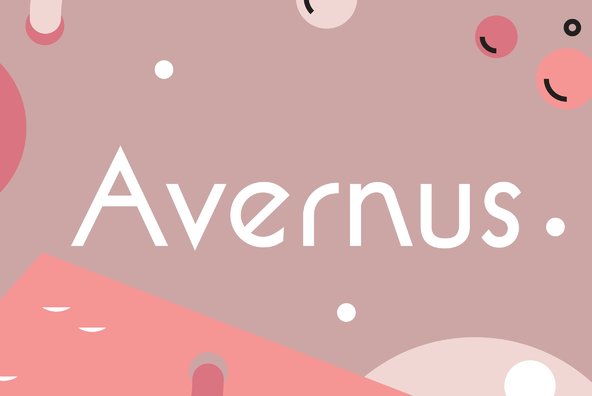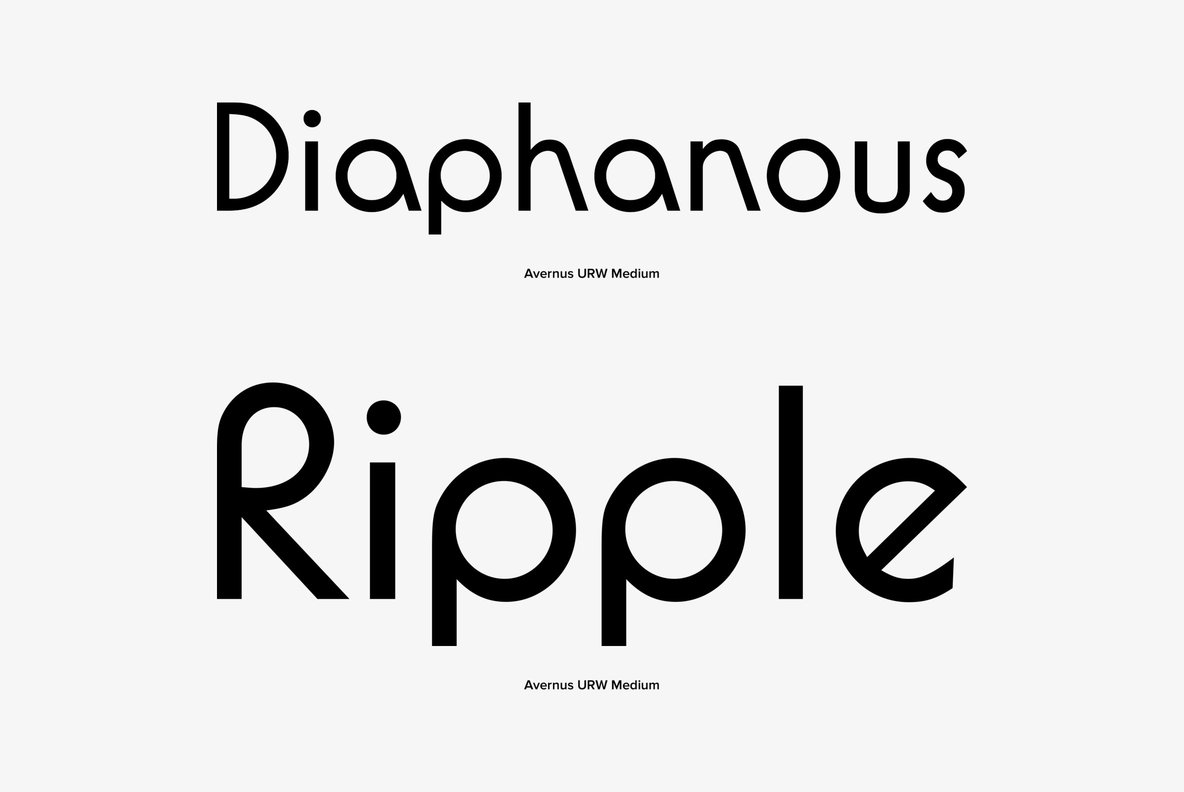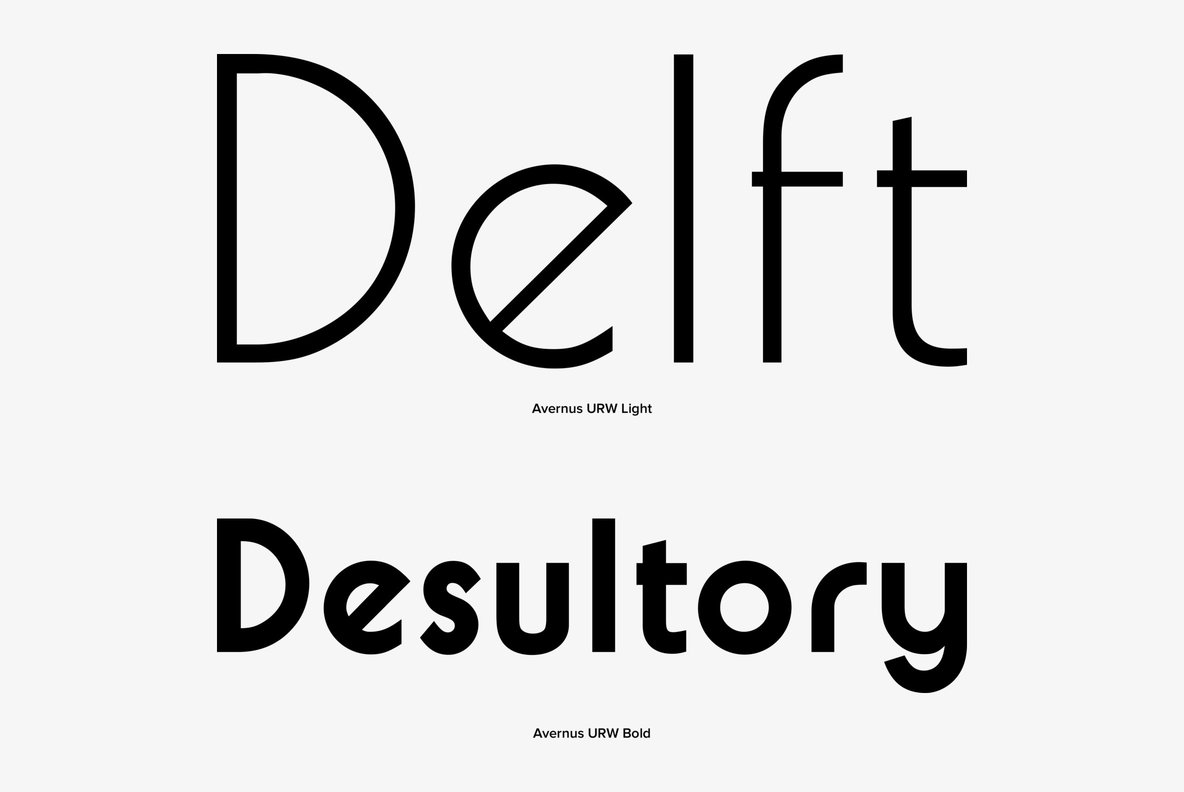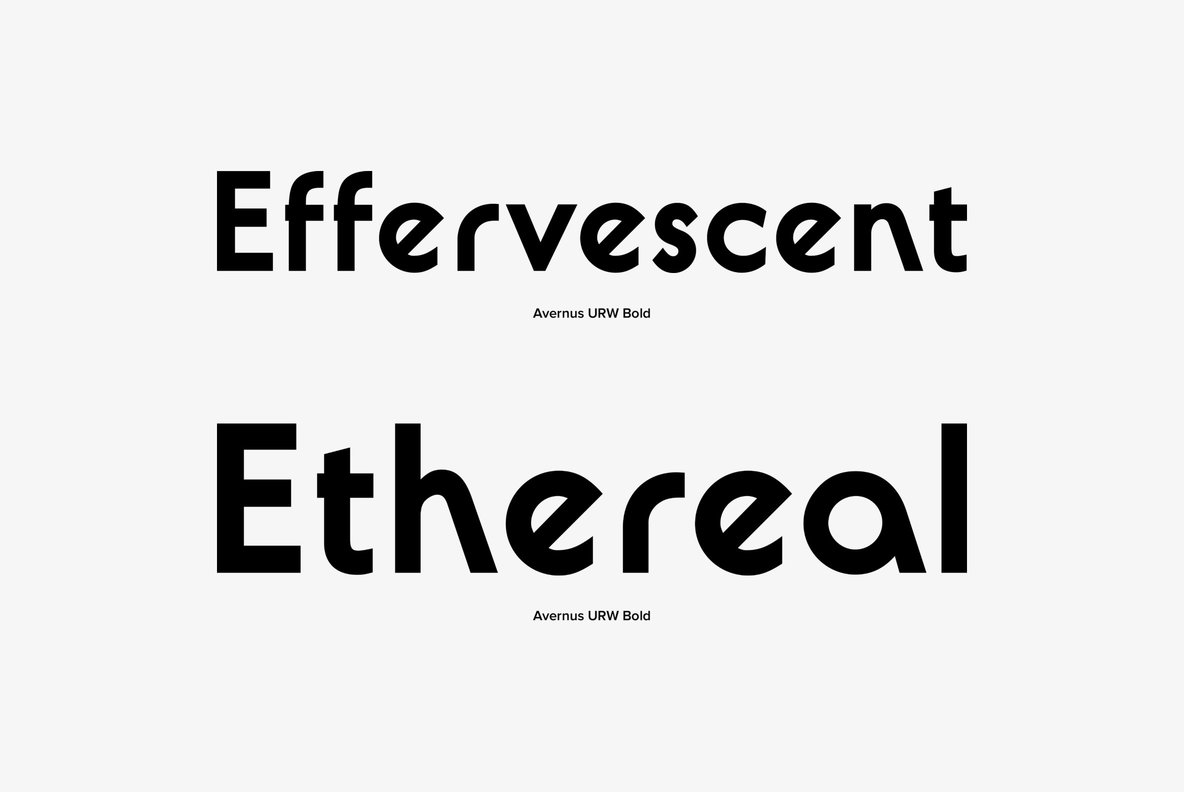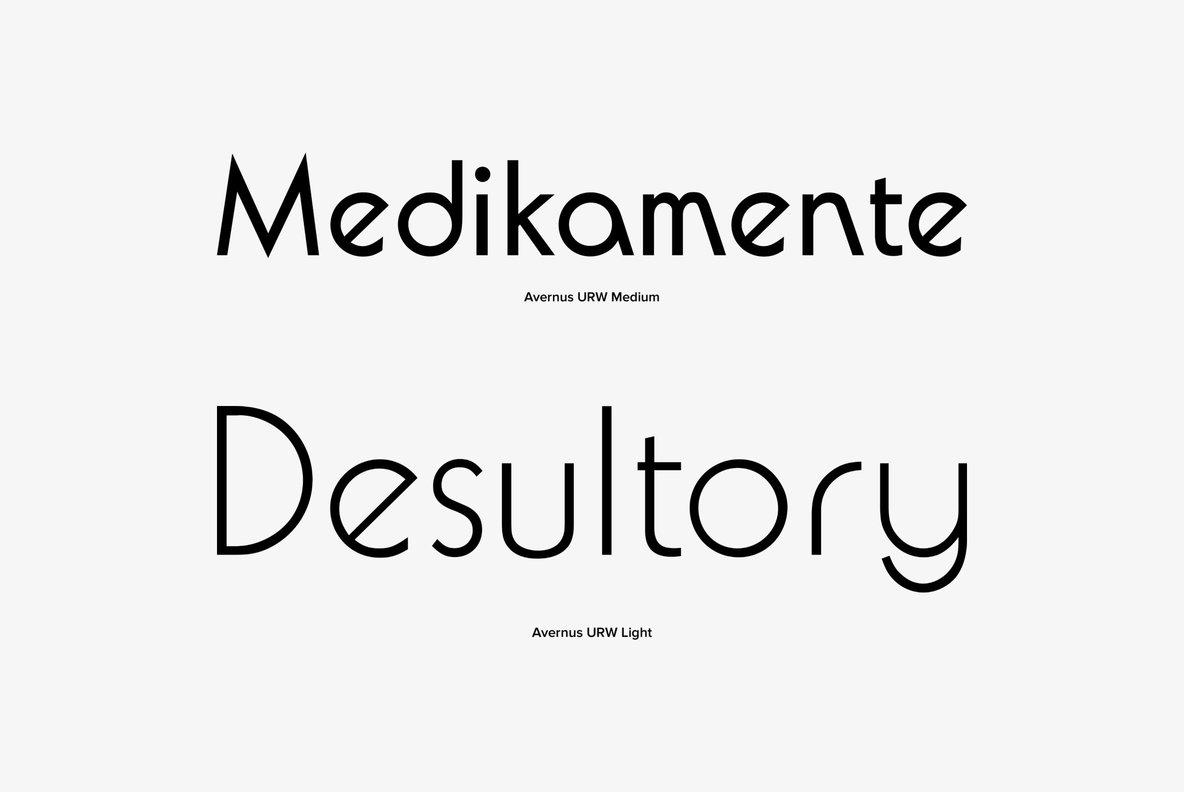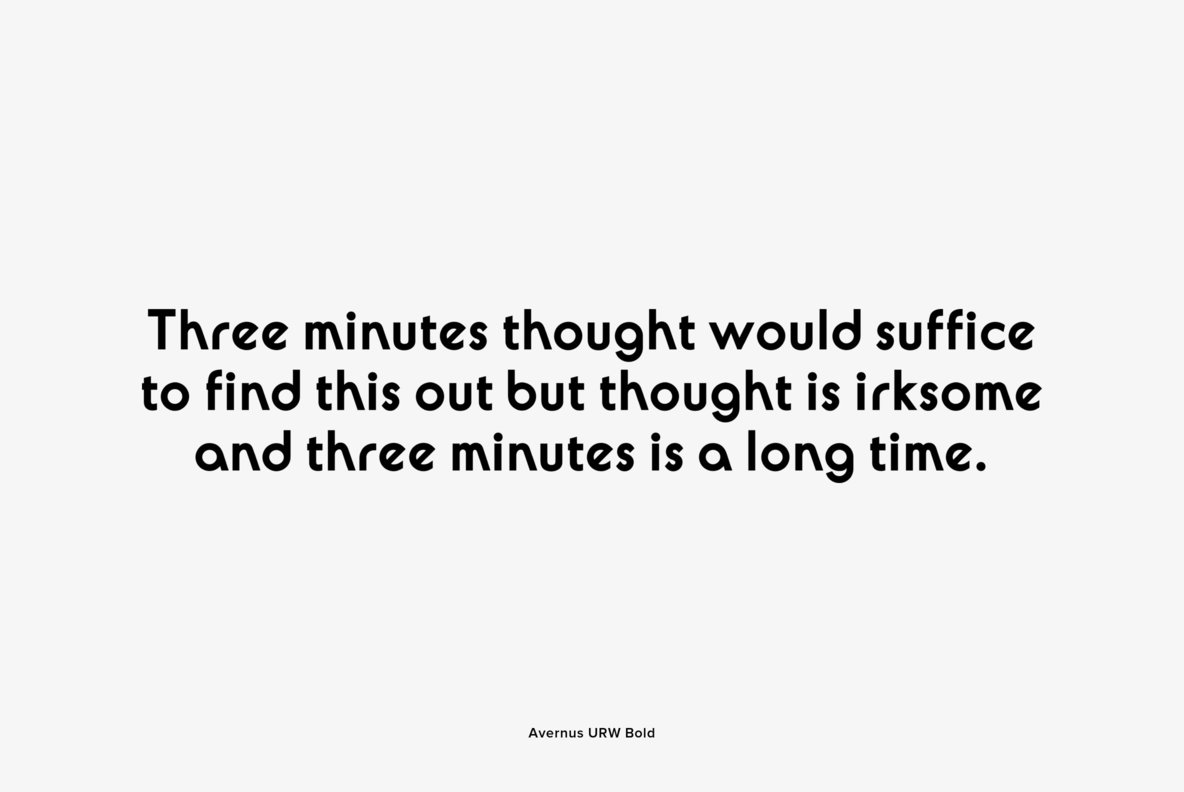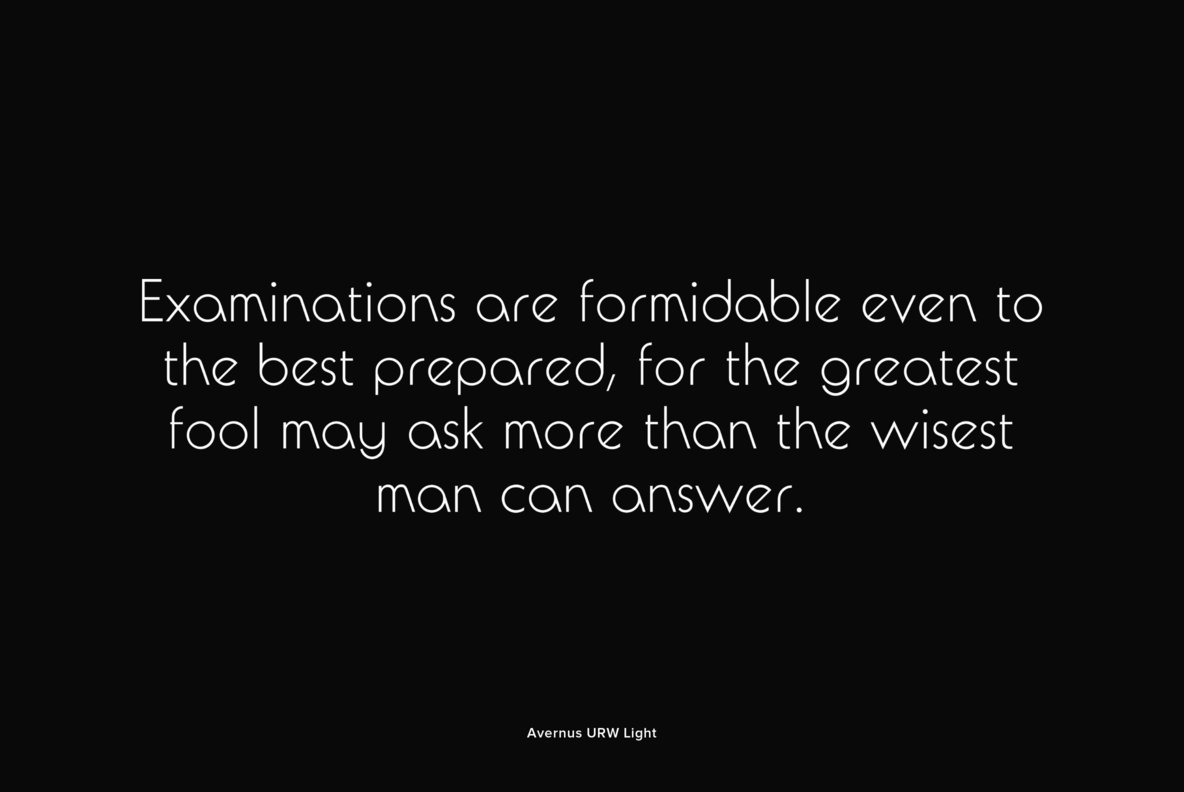
Avernus
Designed by Phil Martin in 1972, Avernus is a fashionable and retro sans-serif typeface design. Avernus contains language support for West, East, Turkish, Baltic, and Romanian.